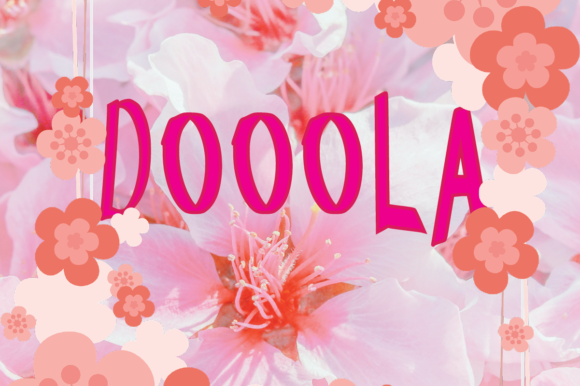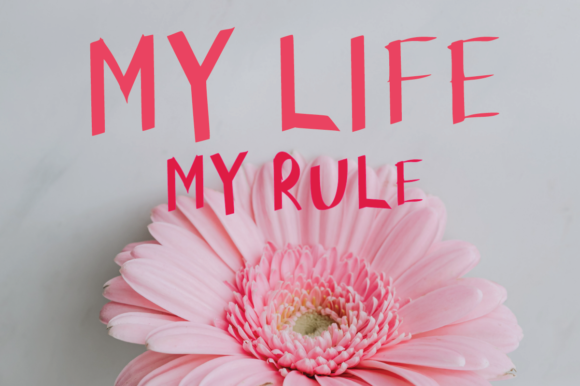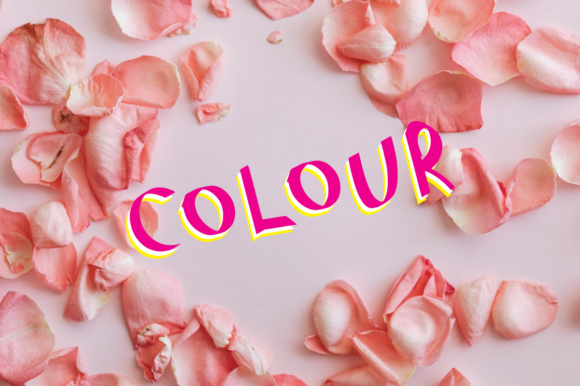
DoooLA Font
About DoooLA Font
Doola is a fun and friendly handwritten font. Whether you are using it for cartoon-related designs, children’s games, quotes, titles, brand names, book covers, posters, or just any creation that requires a touch of beauty, this font is a great choice.